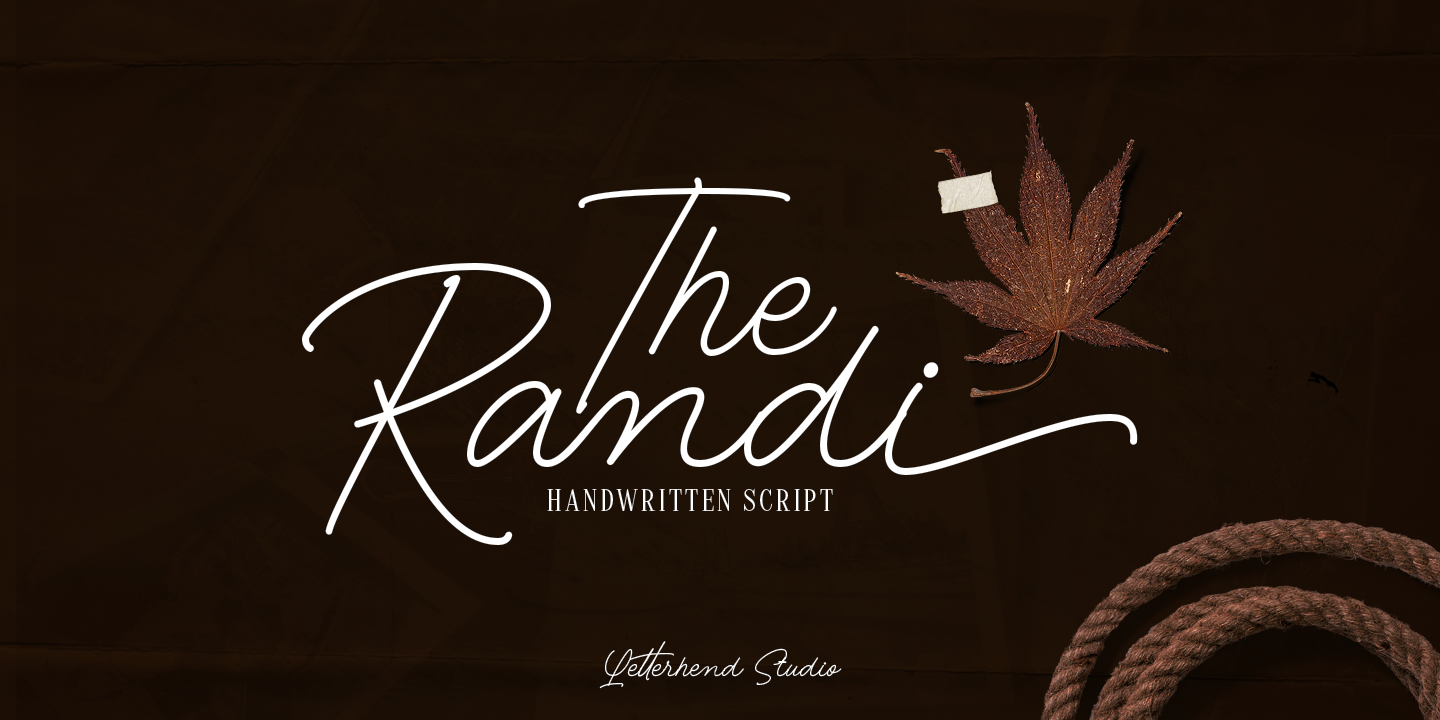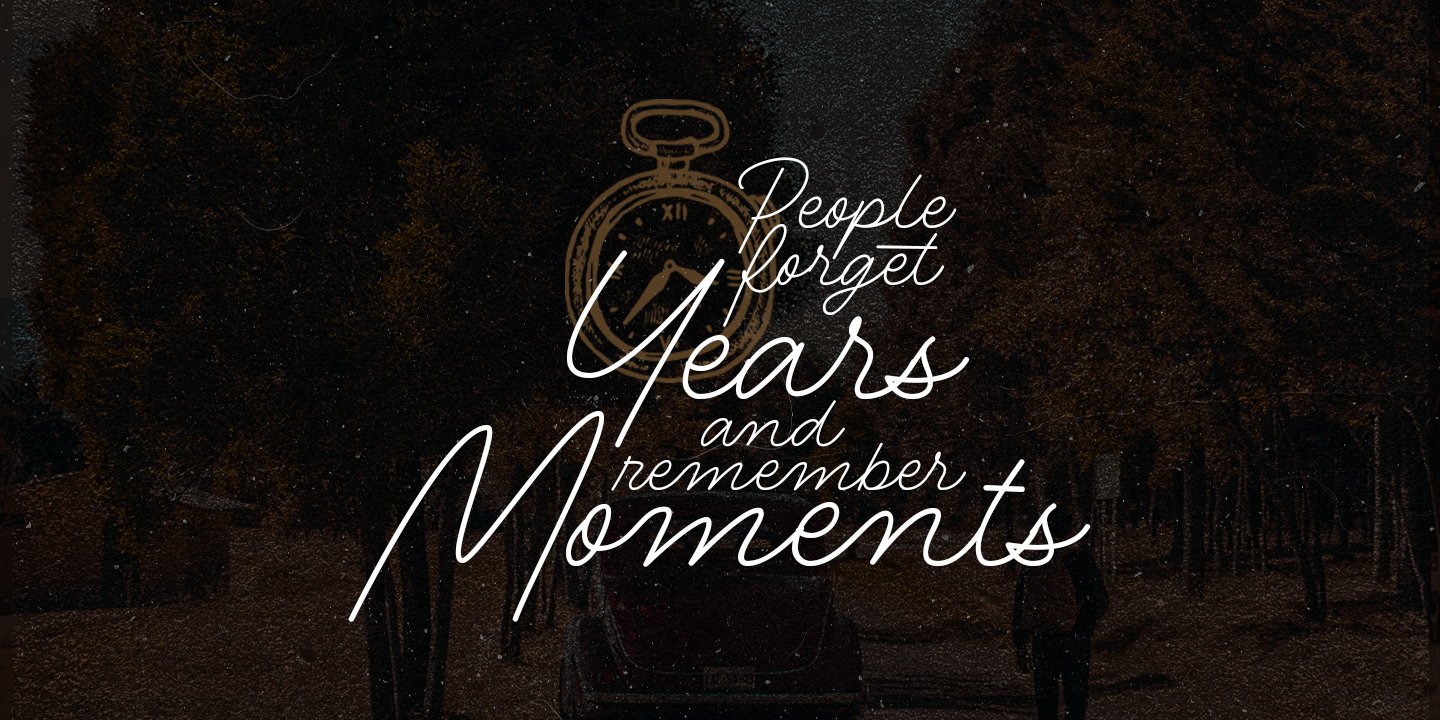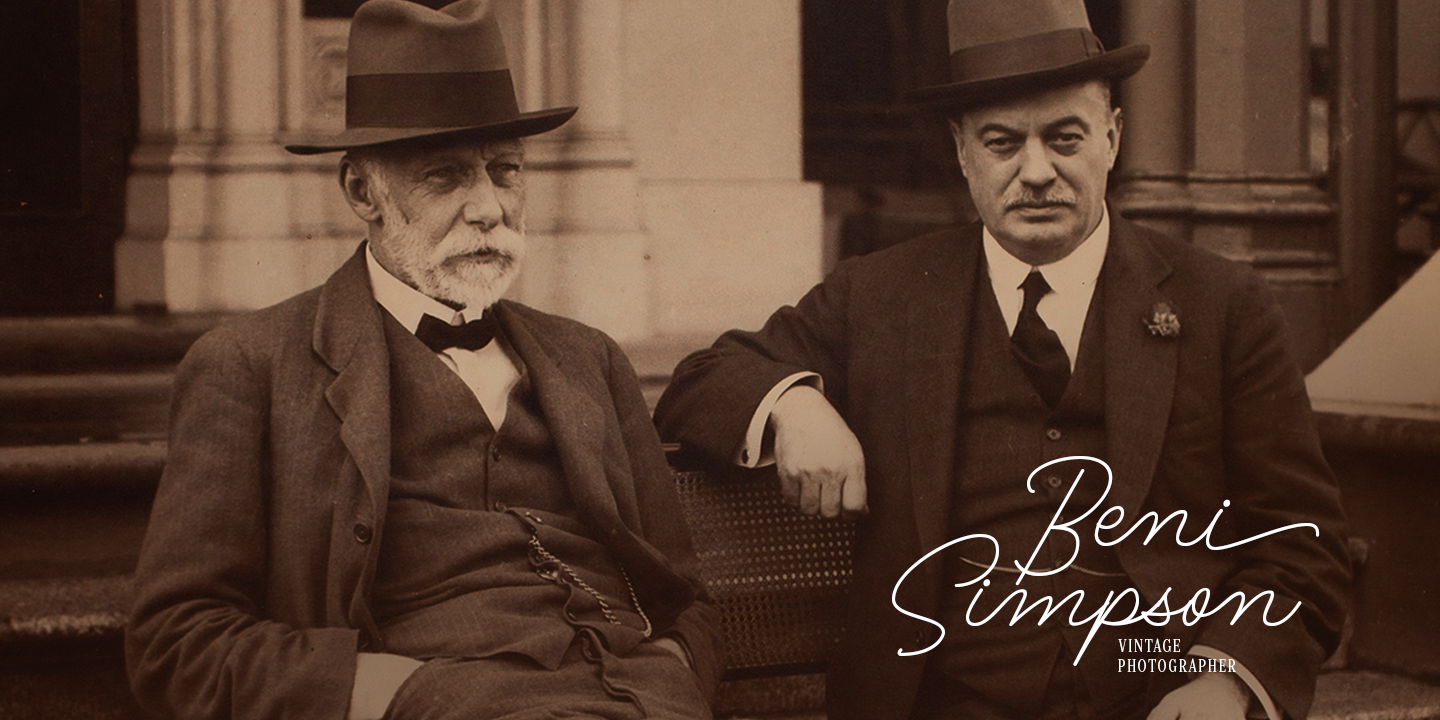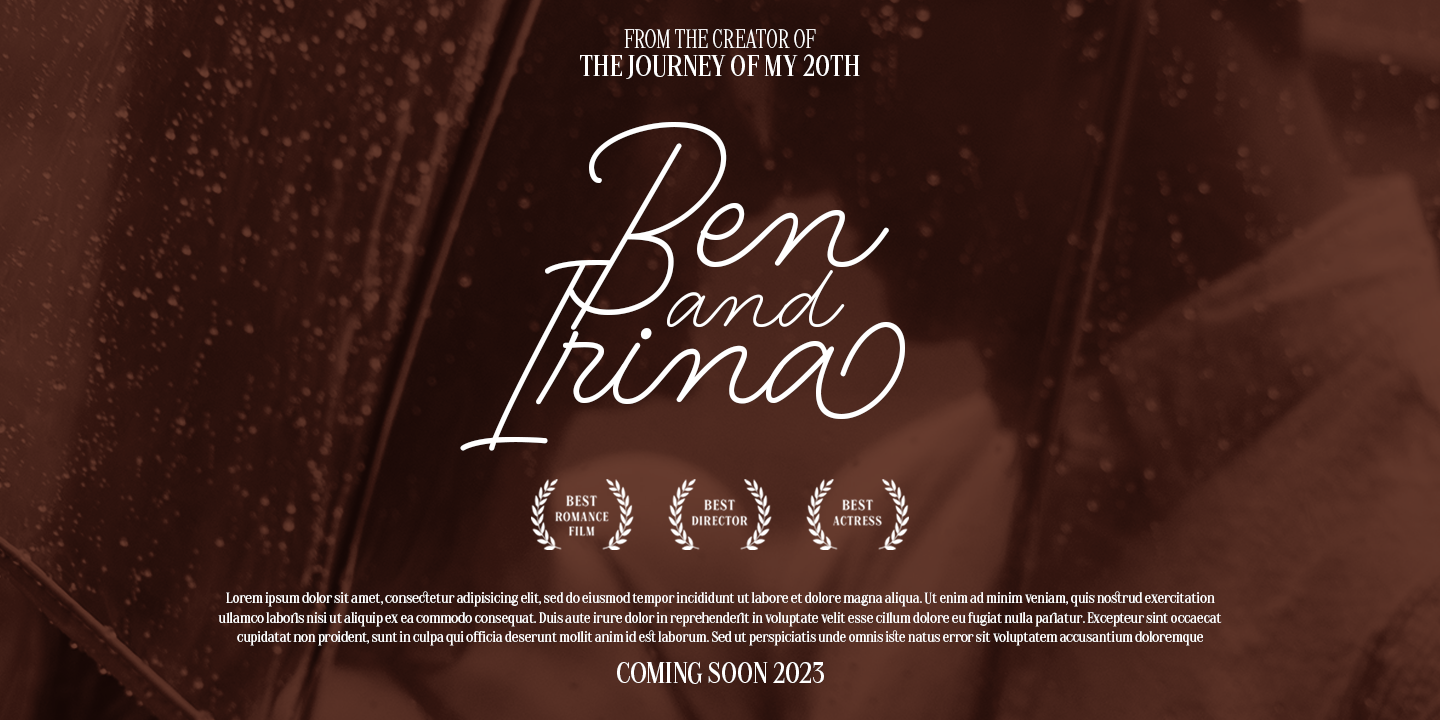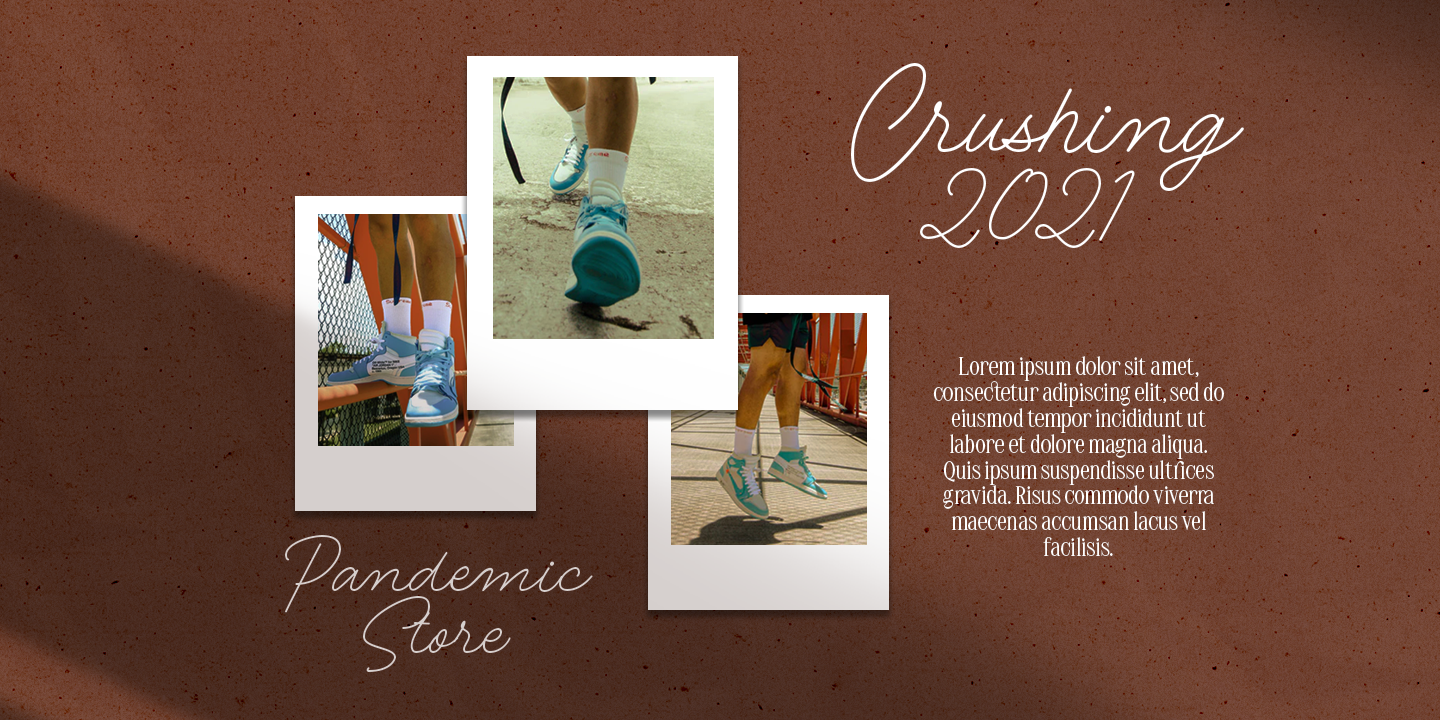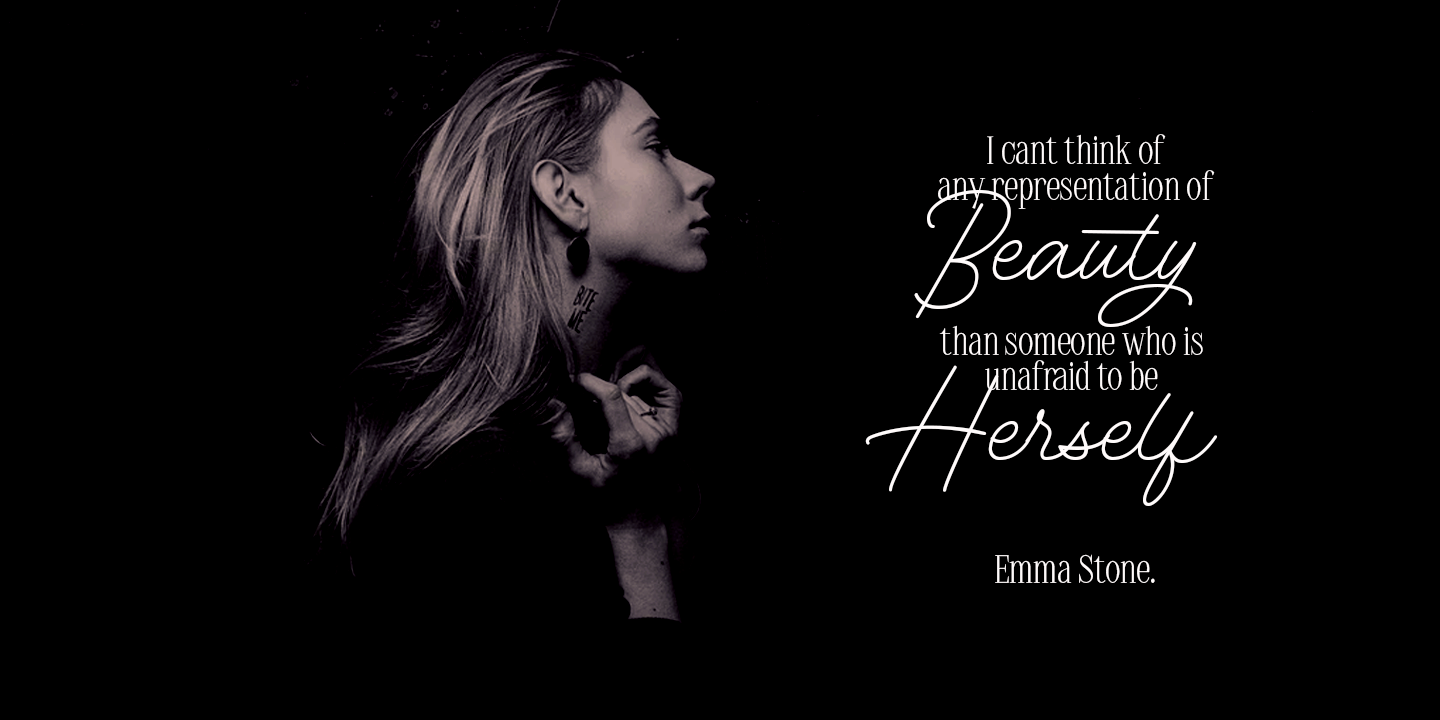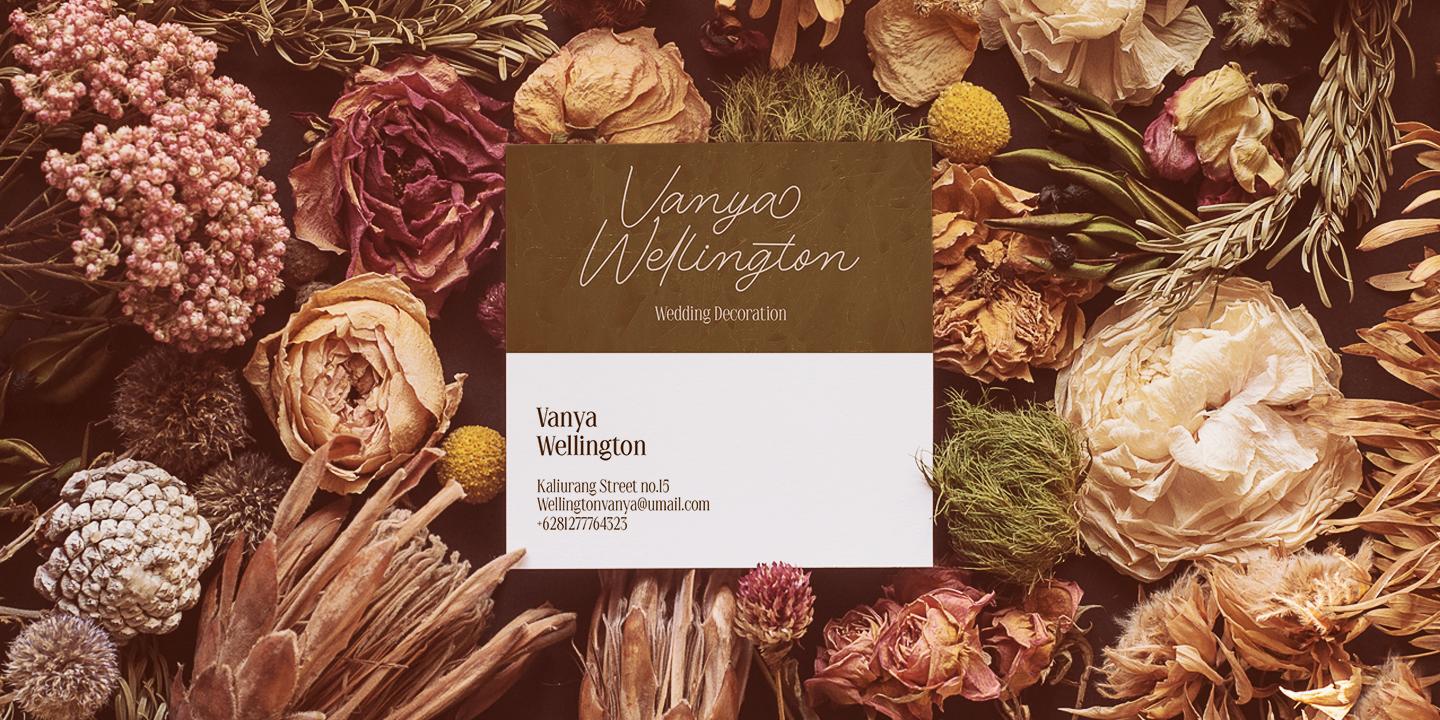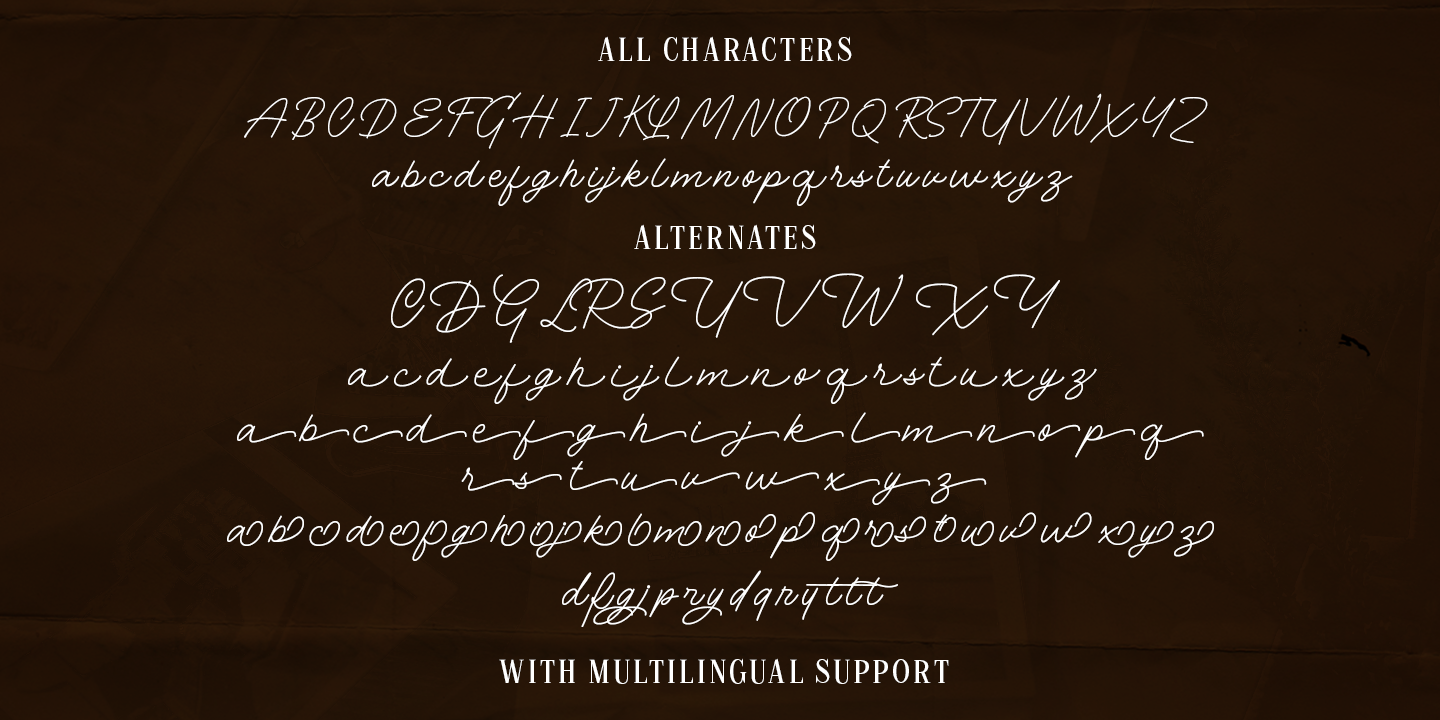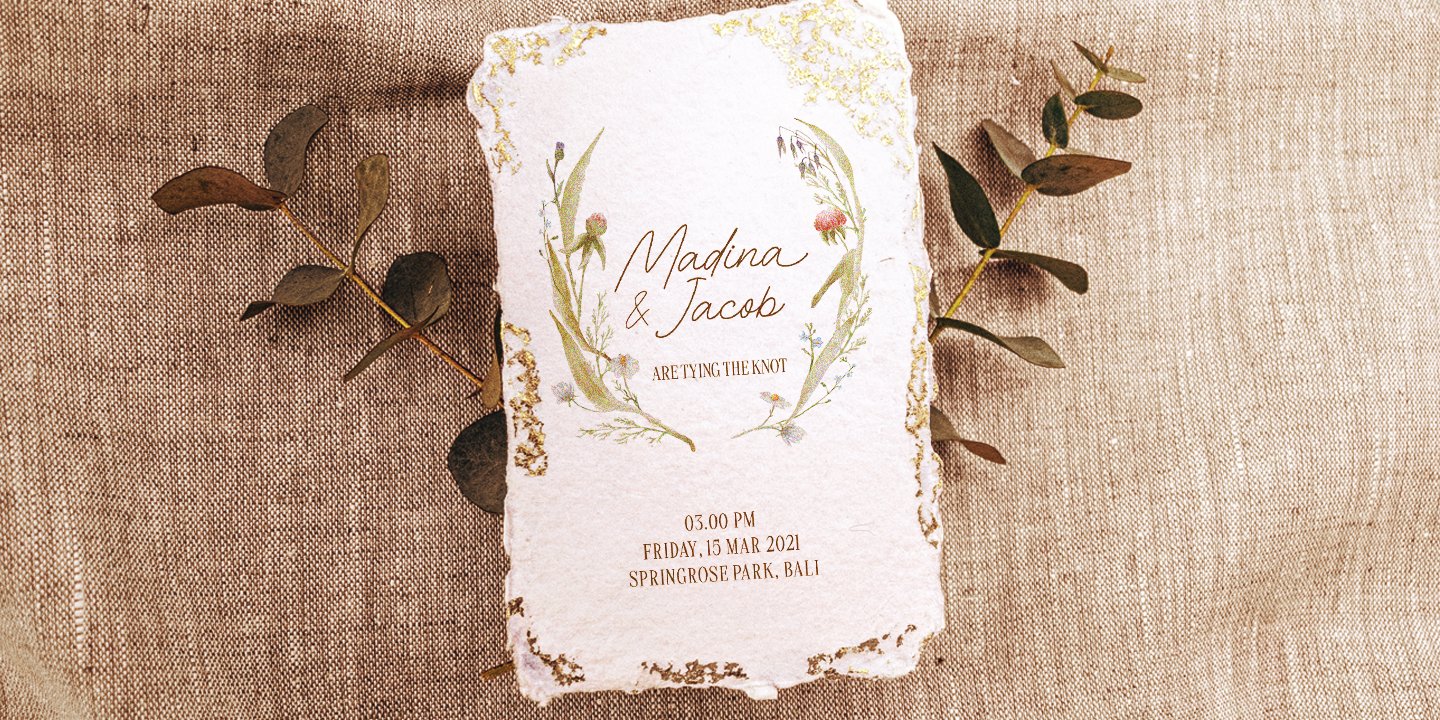
Introducing, The Randi - A monoline handwritten script with classy look. This type of font perfectly made to be applied especially in logo, and the other various formal forms such as invitations, labels, logos, magazines, books, greeting / wedding cards, packaging, fashion, make up, stationery, novels, labels or any type of advertising purpose.
- uppercase & lowercase
- numbers and punctuation
- multilingual
- swash and ligature
- alternates